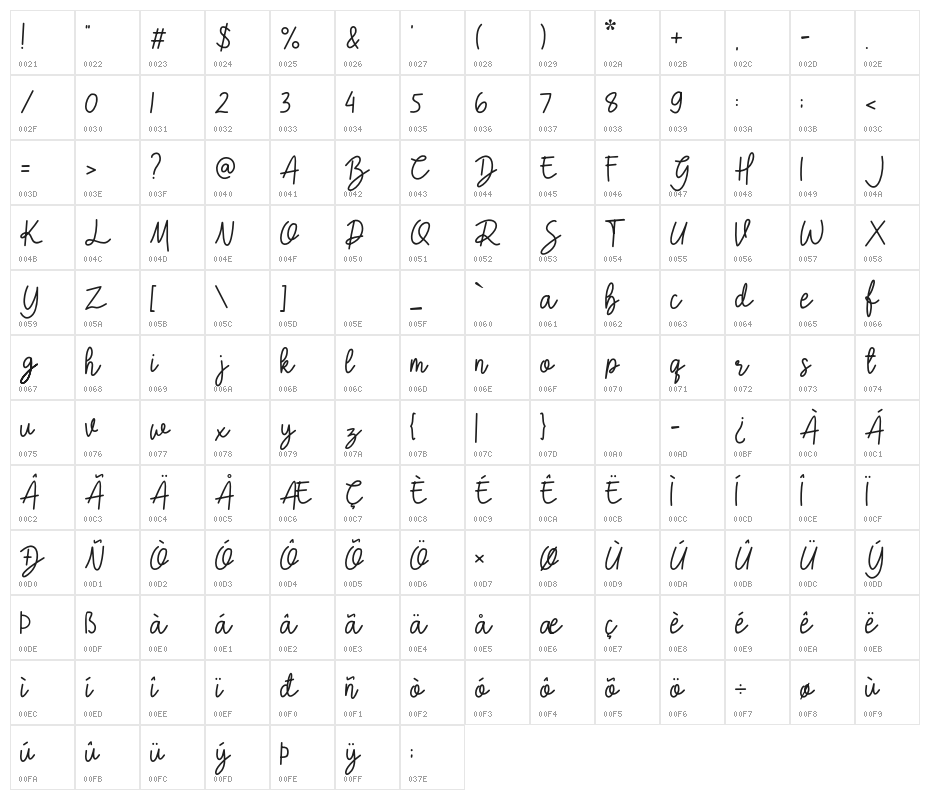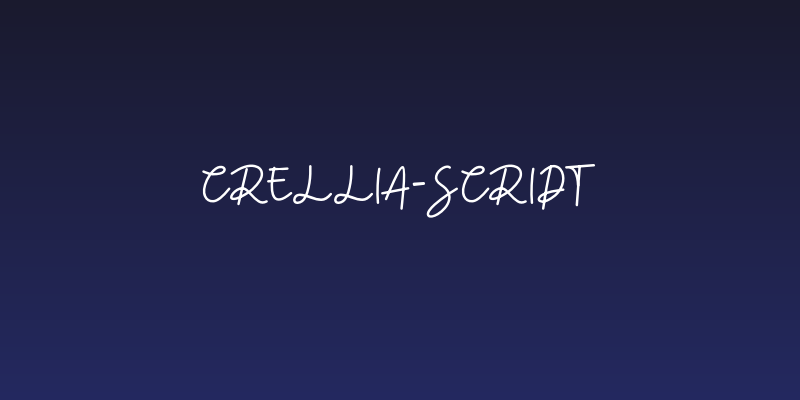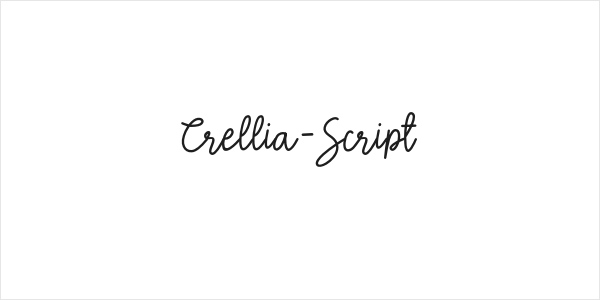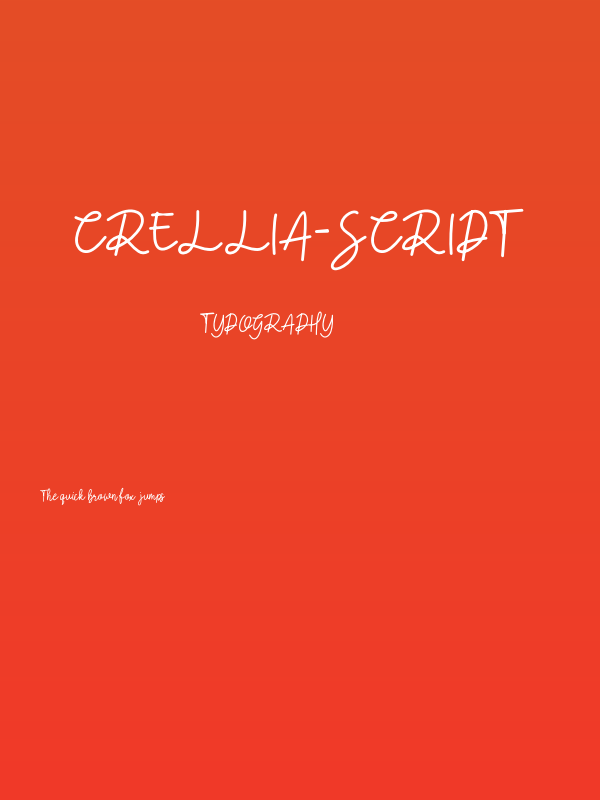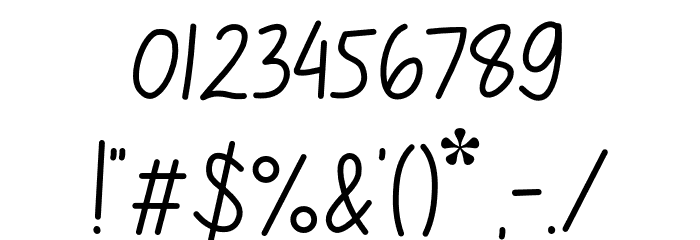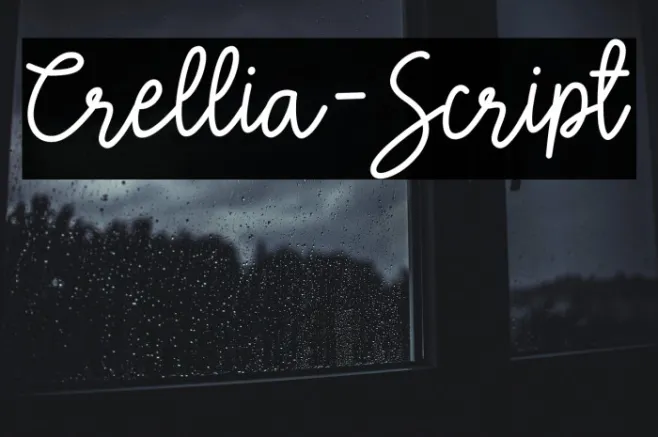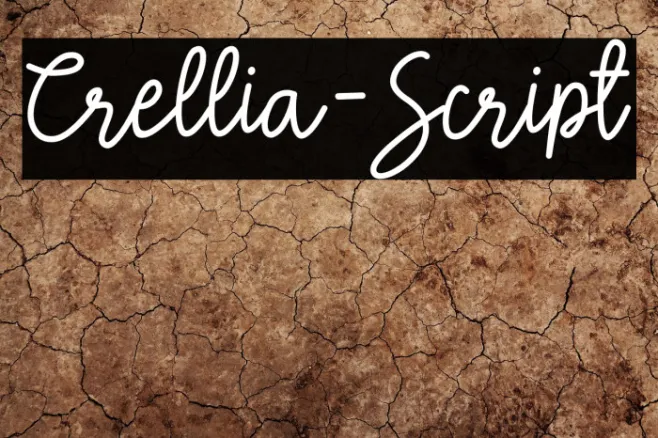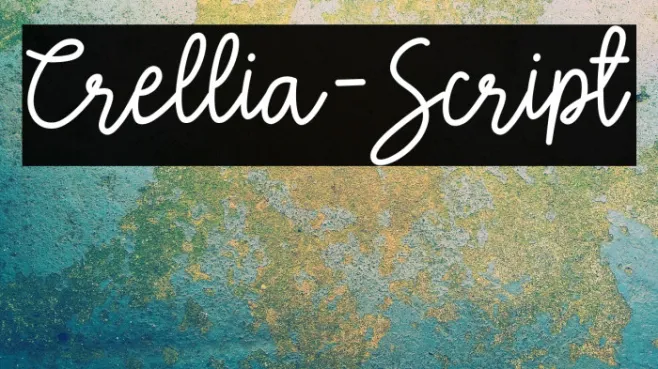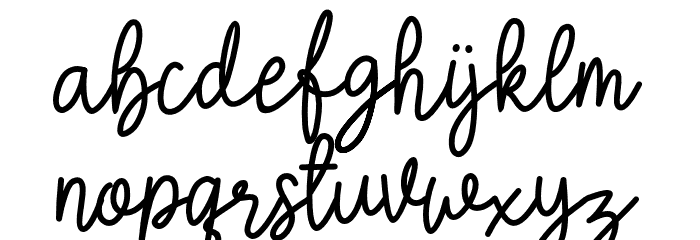
Crellia-Script Font
Crellia-Script Description
This font features a lively and flowing script style, characterized by its smooth, cursive strokes and elegant loops. The uppercase letters maintain a consistent height, while the lowercase letters exhibit a playful bounce, adding a dynamic rhythm to the text. The numerals are clear and legible, complementing the overall aesthetic. Special characters are thoughtfully designed to match the script's fluidity. The font's handwritten quality evokes a personal and approachable feel, making it suitable for a variety of creative applications.
| Use Case | Logos, Invitations, Social Media |
| Proposed Projects | Ideal for wedding invitations, greeting cards, branding projects, and social media graphics. |